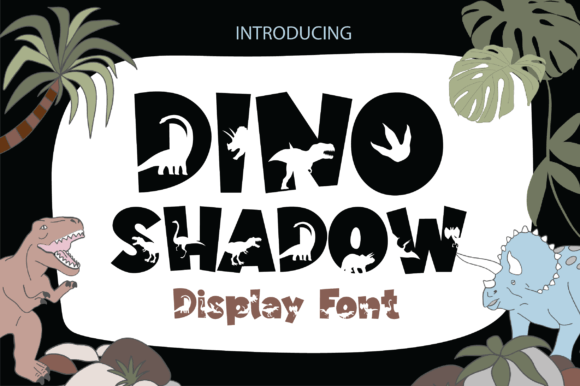
Introducing Dino Shadow Font, the ultimate choice for adding a touch of playfulness and whimsy to your designs! Created by SVG Bloom, this decorative font is specifically crafted to captivate the hearts of children and those young at heart.
With its cheerful and colorful appearance, Dino Shadow instantly injects a sense of fun and joy into any project it graces. Whether you're designing book covers, posters, invitations, or any other creative endeavor, this font is guaranteed to bring a smile to everyone's face.
What sets Dino Shadow apart is its versatility and ease of use. This font is PUA encoded, meaning you can effortlessly access all glyphs and swashes. No more struggling to find the perfect character or symbol – Dino Shadow has got you covered!
Imagine the excitement and wonder that will radiate from your children's book cover when adorned with this captivating font. Watch as the vibrant colors and playful curves of Dino Shadow draw readers in, sparking their curiosity and making them eager to discover the magical world within.
Planning a poster for a school event? Dino Shadow Font is the perfect choice to grab attention and convey a sense of excitement. Its eye-catching nature and energetic vibes will make your message impossible to ignore, ensuring a successful turnout and creating a buzz among students.
Invitations hold the key to setting the mood for any event. Whether it's a birthday party, baby shower, or a fun-filled gathering, Dino Shadow Font will instantly set the tone of joy and celebration. Your guests won't be able to resist the allure of this font, making their anticipation for the event even more palpable.
In a nutshell, Dino Shadow Font is the ultimate companion for anyone looking to infuse their designs with an extra dose of cheerfulness and creativity. So why wait? Unleash your imagination, let your inner child run wild, and bring your projects to life with the enchanting charm of Dino Shadow Font!